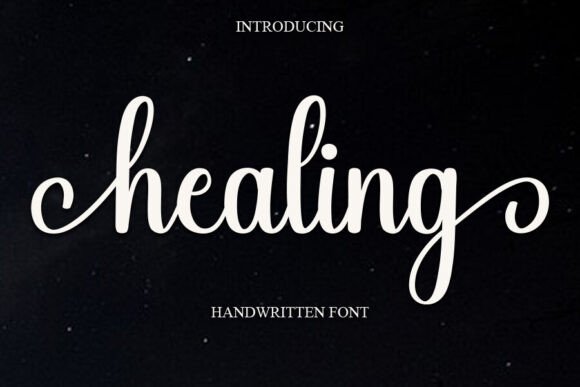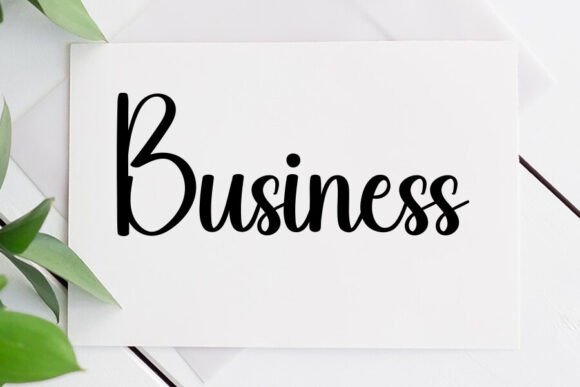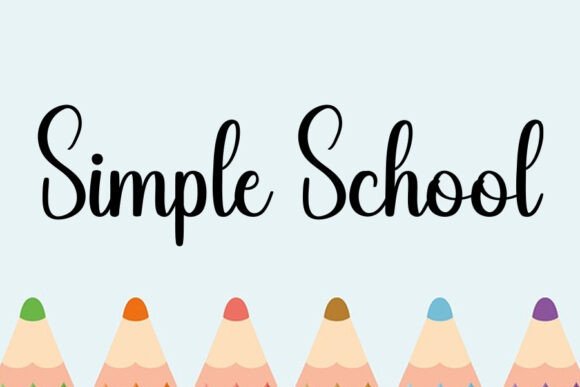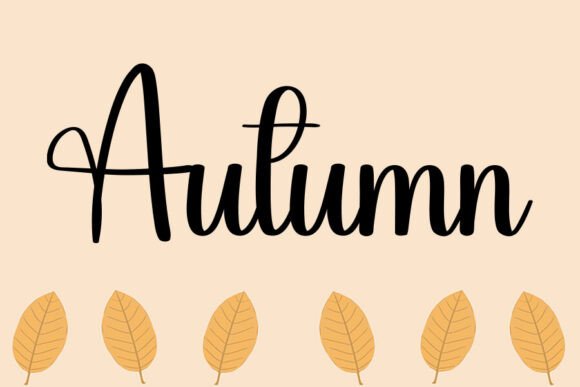
Healing Font: Elegant Script Font for Branding & Wedding Design
About the Healing Font
Step up your design game with Healing Font, a font that exudes confidence and style. Healing is a sweet and cursive handwritten font. This gentle font will look gorgeous on a variety of design ideas. It will add a joyful and romantic touch to each of your projects! Perfectly fit for branding, logo, wedding things, greeting cards, fashion, lookbook, marketing promotion, and any time you want your design to look fancy and elegant but still casual.
Healing Font’s delicate cursive style excels in applications requiring a touch of romantic charm. It’s ideal for short headlines, branding elements for feminine products or businesses, wedding stationery, and elegant packaging. However, its low x-height and connected lettering make it unsuitable for body text or UI elements where readability is paramount. Avoid using it for large blocks of text.
For optimal pairings, consider contrasting Healing Font with a clean sans-serif like Lato for a modern balance, or a classic serif like Garamond for a more traditional feel. A geometric sans-serif such as Montserrat could also provide a striking counterpoint. These pairings maintain legibility while complementing Healing Font’s inherent softness.
The overall personality of Healing Font is undeniably feminine and friendly, conveying a sense of gentle elegance and approachability. Its sweet, informal style makes it perfect for brands that wish to project warmth and care.
Healing Font Usage Examples
Healing Font Example